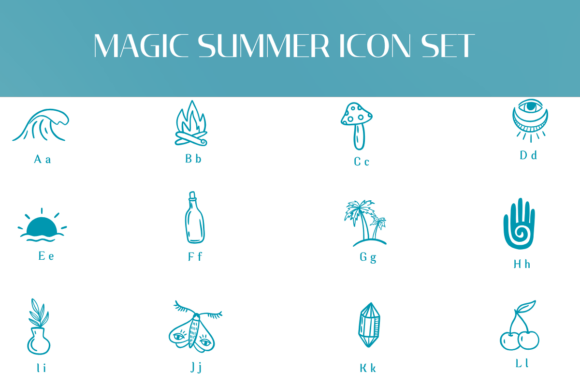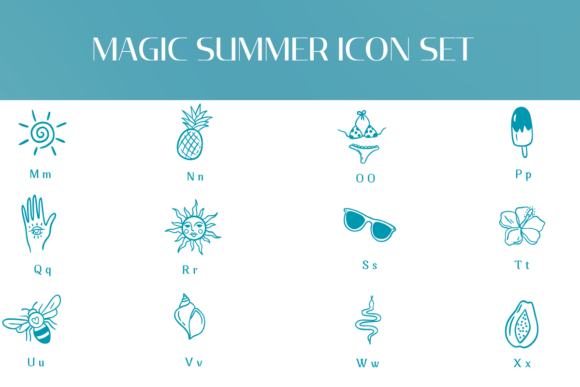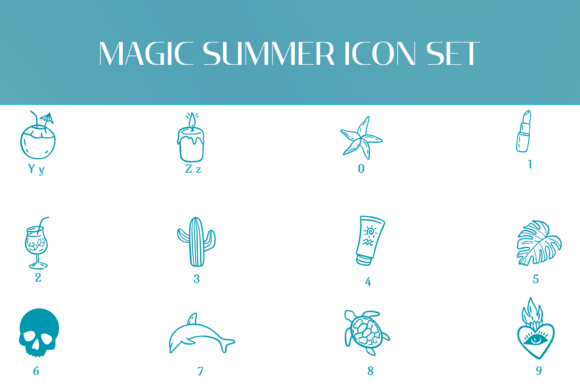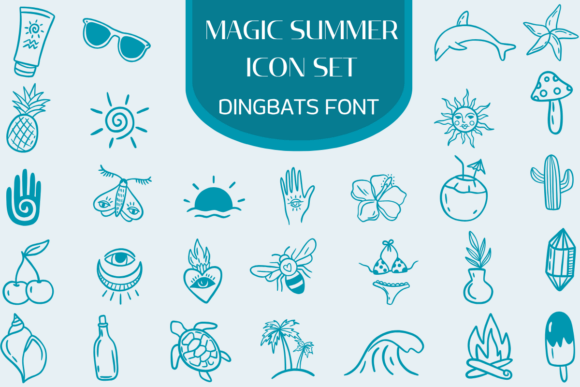
Introduction to Magic Summer Icon Set Font
Magic Summer: Whimsical Icon Dingbats Font Capture the carefree spirit of the sunniest season with Magic Summer.
Unlike a standard alphabet font, this dingbat set is a treasure chest of hand-drawn line art Featuring over 30 unique iconsβ€”from celestial suns and mystical moths to beachy sea turtles and tropical hibiscusβ€”it is the perfect tool for creating custom stickers, social media graphics, and personalized stationery.